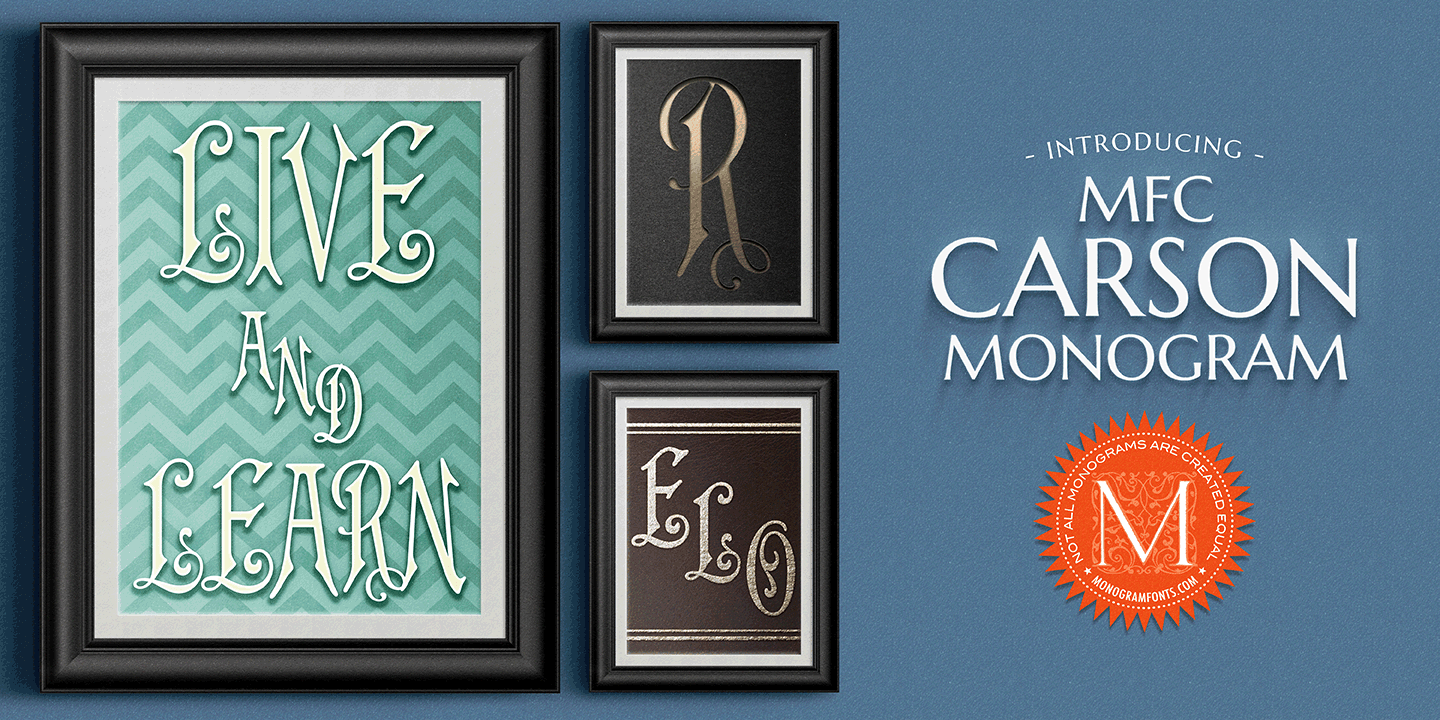
The MFC Carson Monogram Font Free Download is an exquisitely elegant and personalized typeface, making it an excellent choice for designs that demand sophistication, bespoke detailing, and a timeless sense of individuality. This distinguished font is perfectly suited for luxury branding, wedding invitations, personal stationery, embroidered goods, jewelry design, and high-end event collateral. Imagine it intricately gracing a bespoke gift item, providing a refined and classic touch to a couple's wedding crest, or lending an air of established quality to a personalized heirloom. Its classic letterforms, designed specifically for elegant monogramming, ensure your message is delivered with precision and an undeniable sense of enduring class.
What makes MFC Carson Monogram Font truly exciting is its specialized design for creating unique and traditional monograms. It's not just a decorative font; it embodies a meticulous attention to detail and a historical elegance that makes it incredibly compelling. The ability to combine initials in a beautiful, interwoven fashion creates a distinctive visual identity that is both classic and deeply personal. Designers will appreciate how it immediately adds a custom, luxurious quality to any project, making it ideal for designs that need to convey heritage, sophistication, and a truly bespoke feel.
The MFC Carson Monogram Font family typically focuses on its singular, specialized style, as its strength lies in its intricate monogramming capabilities. While primarily a display font, its design often includes a robust set of uppercase letters, each meticulously crafted to interlock and combine harmoniously. Many versions come with a comprehensive array of alternate characters or specific left, center, and right letterforms to facilitate the creation of seamless monograms. These focused design features ensure that the MFC Carson Monogram Font Free Download provides ample creative opportunities to craft truly unique, elegant, and visually captivating designs that celebrate personalization and classic artistry.